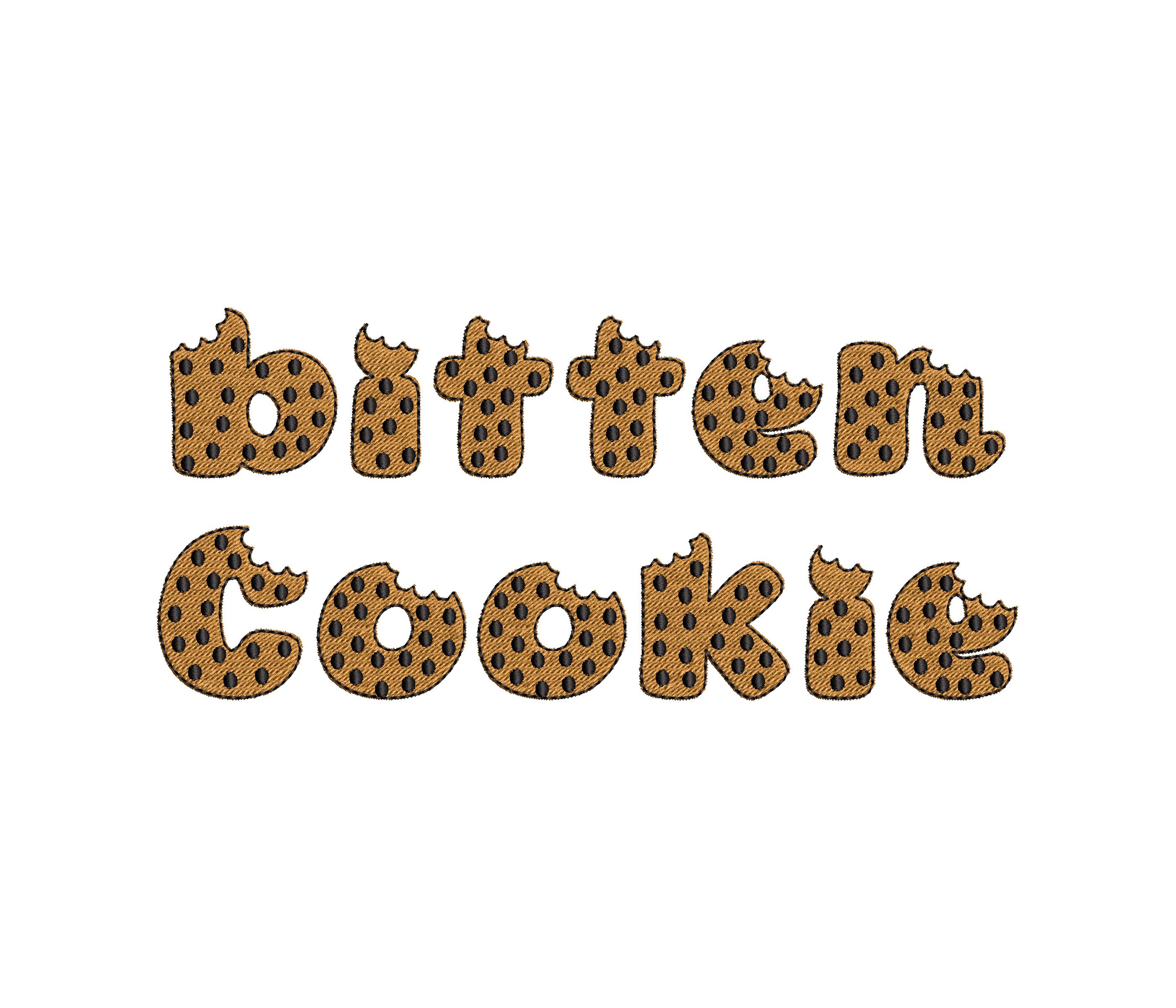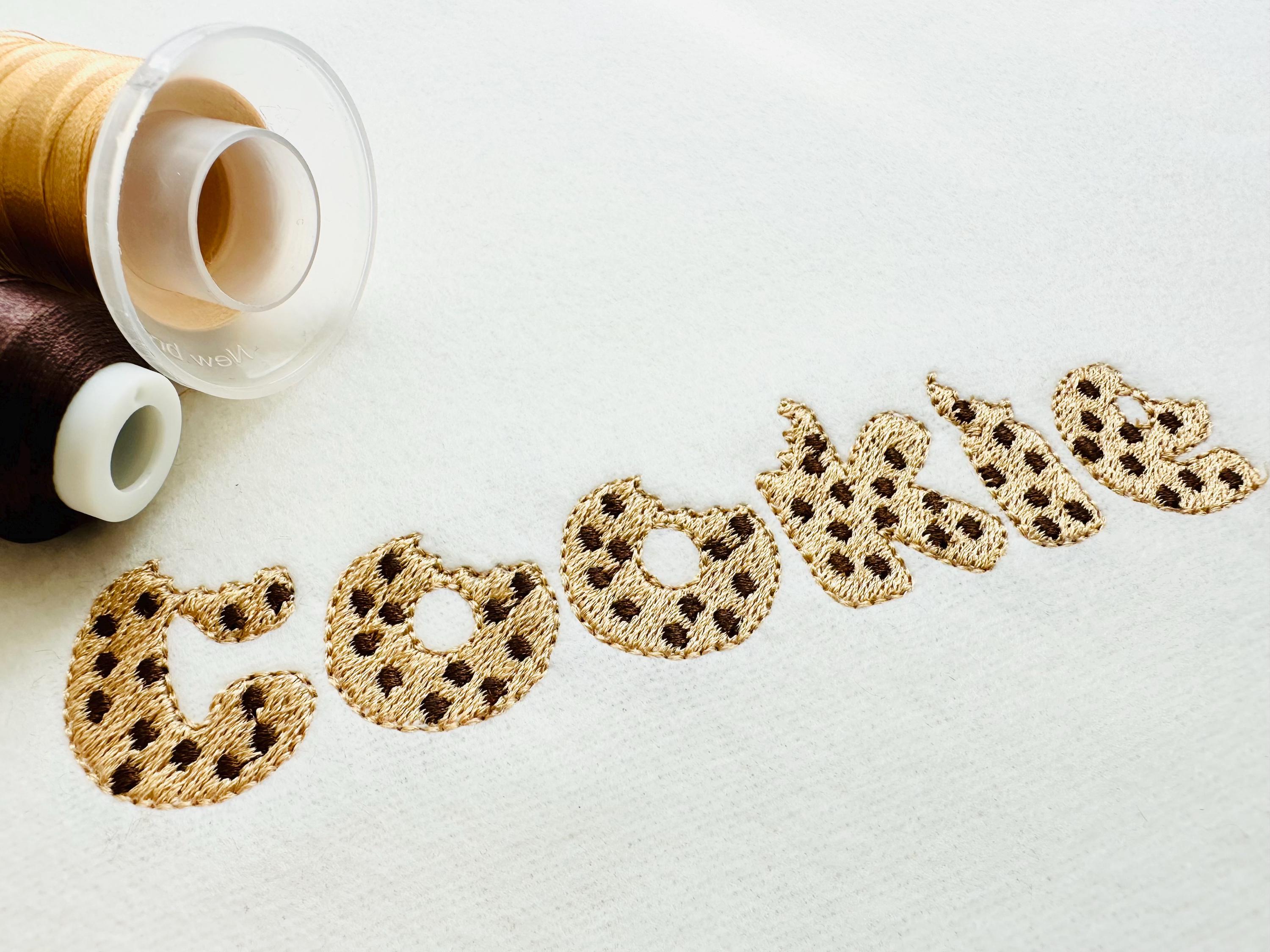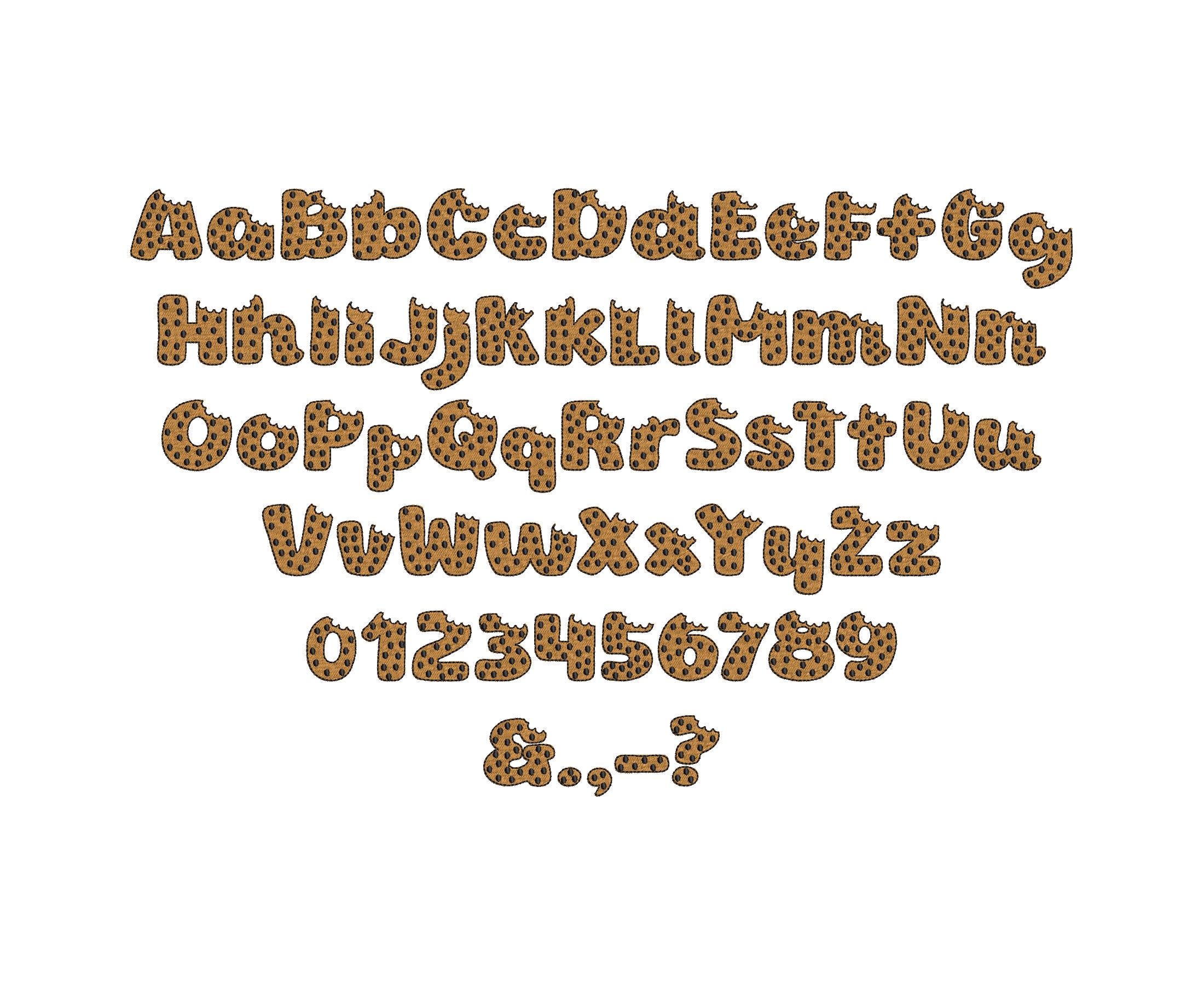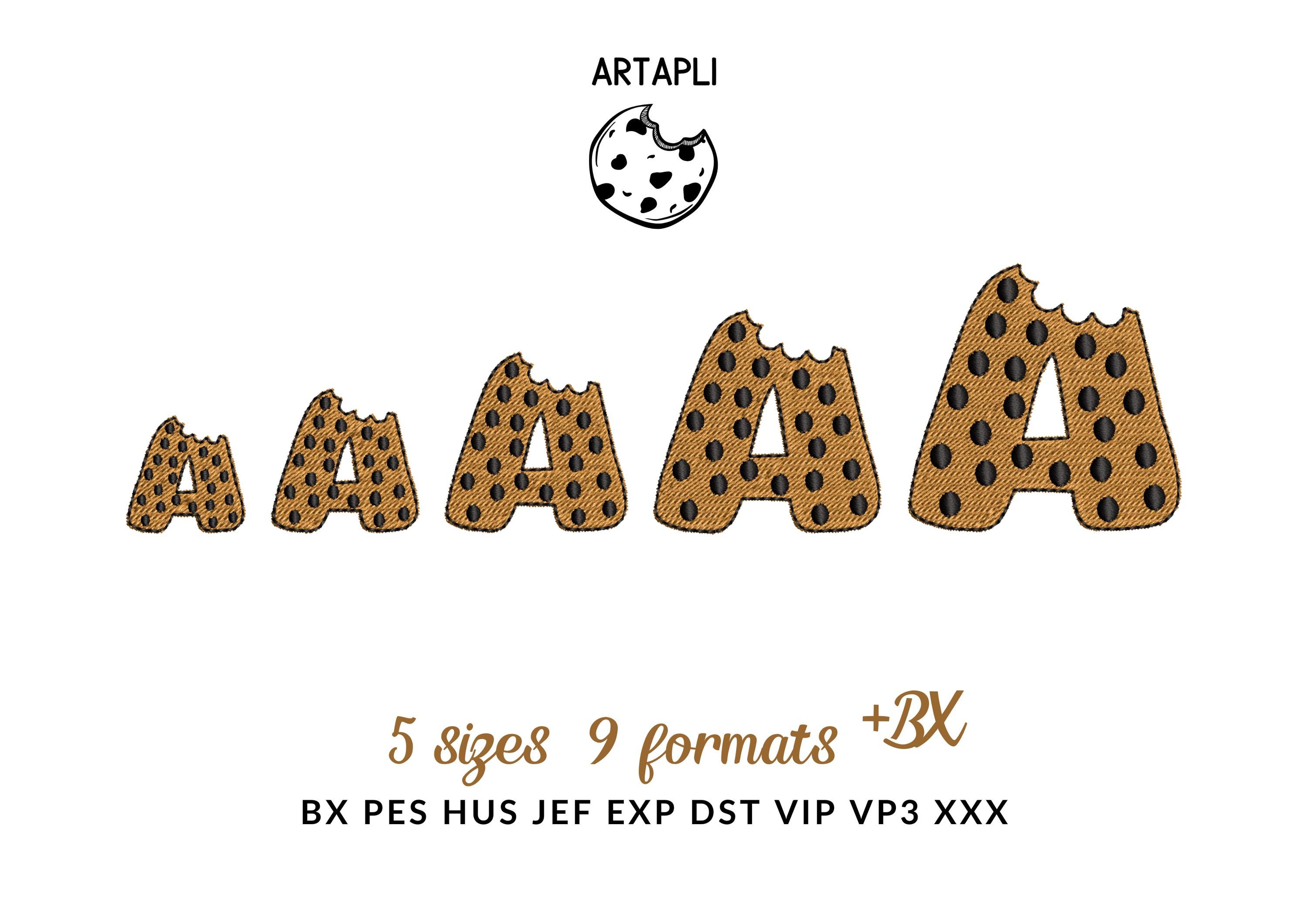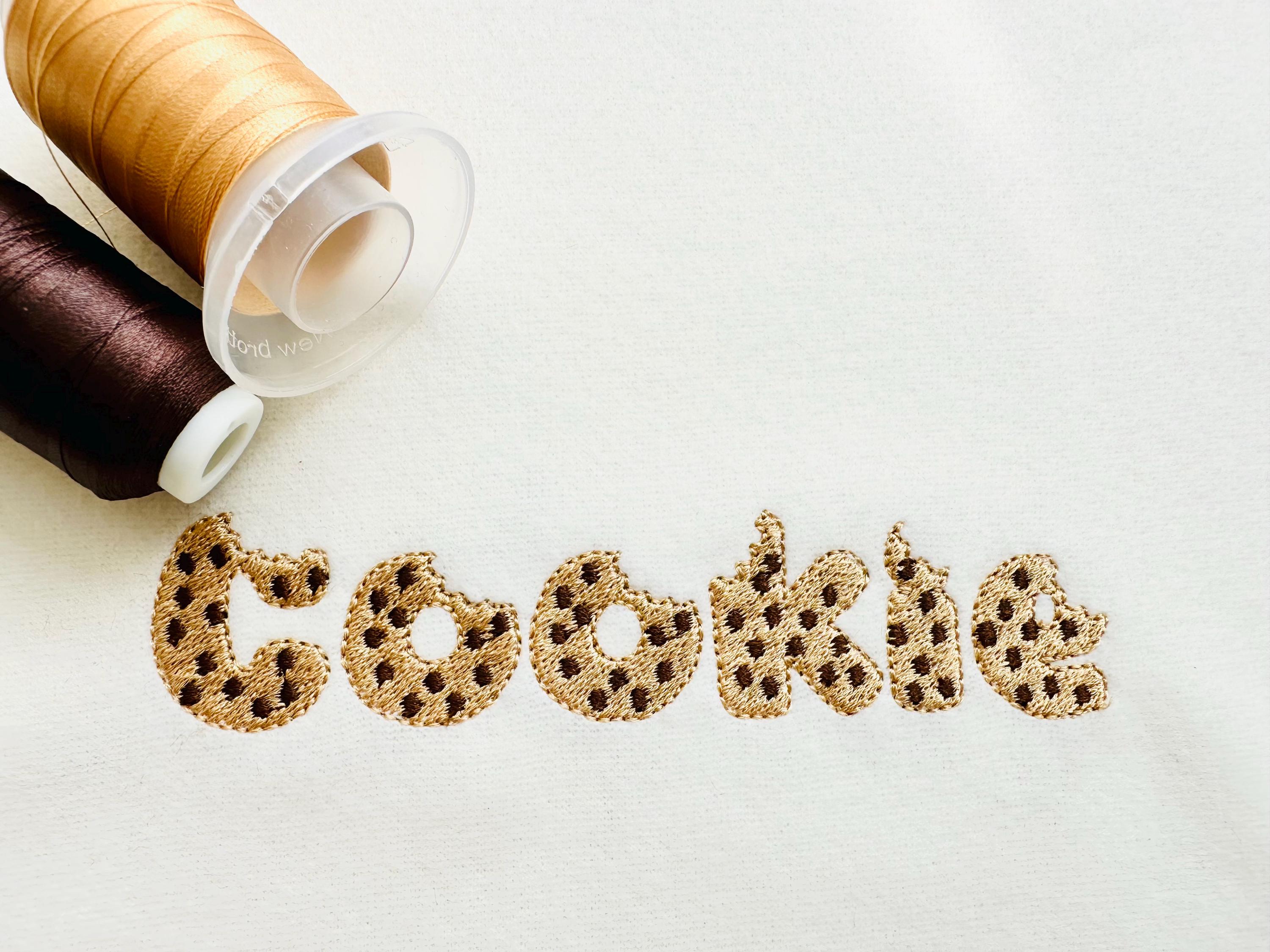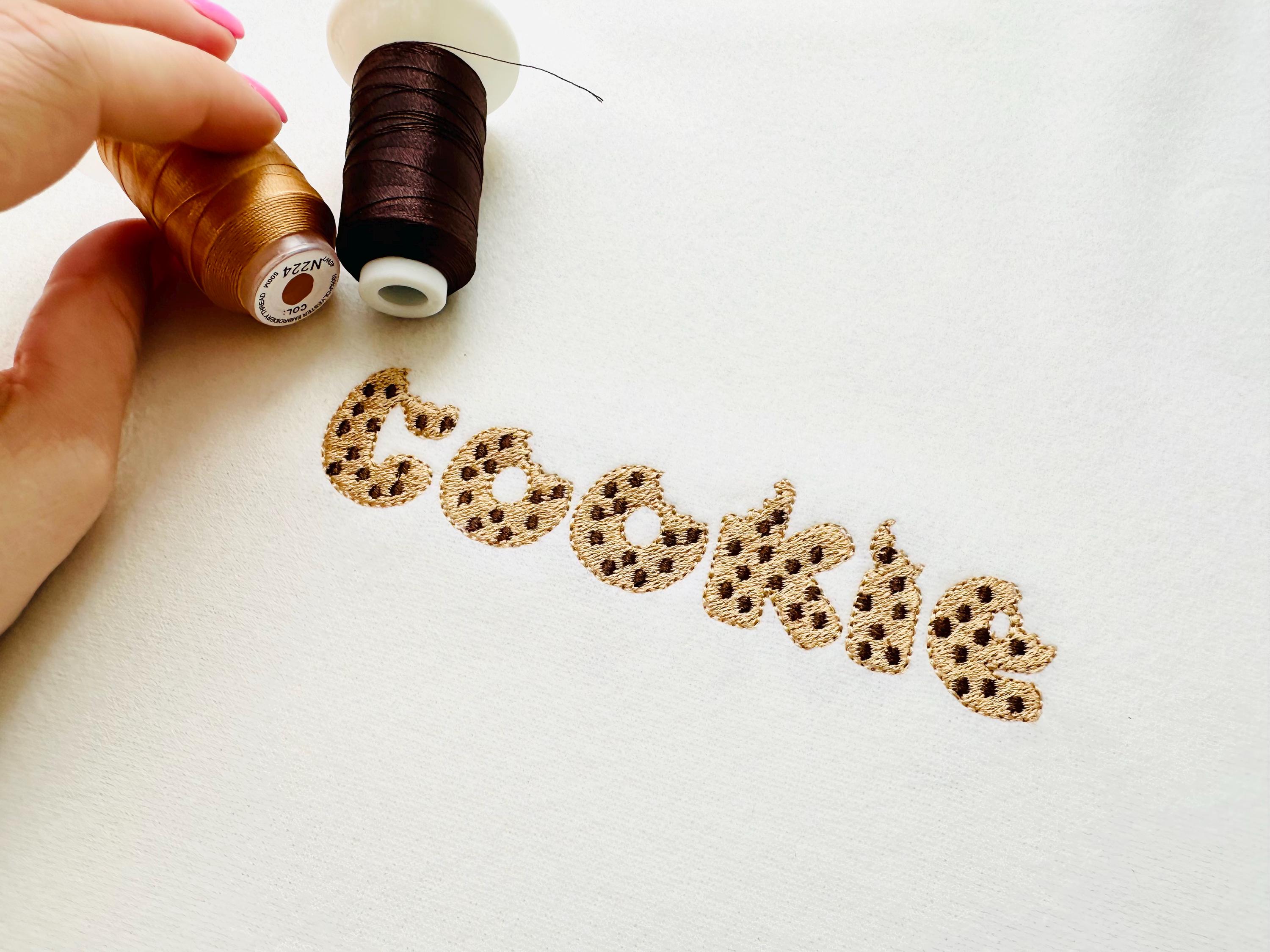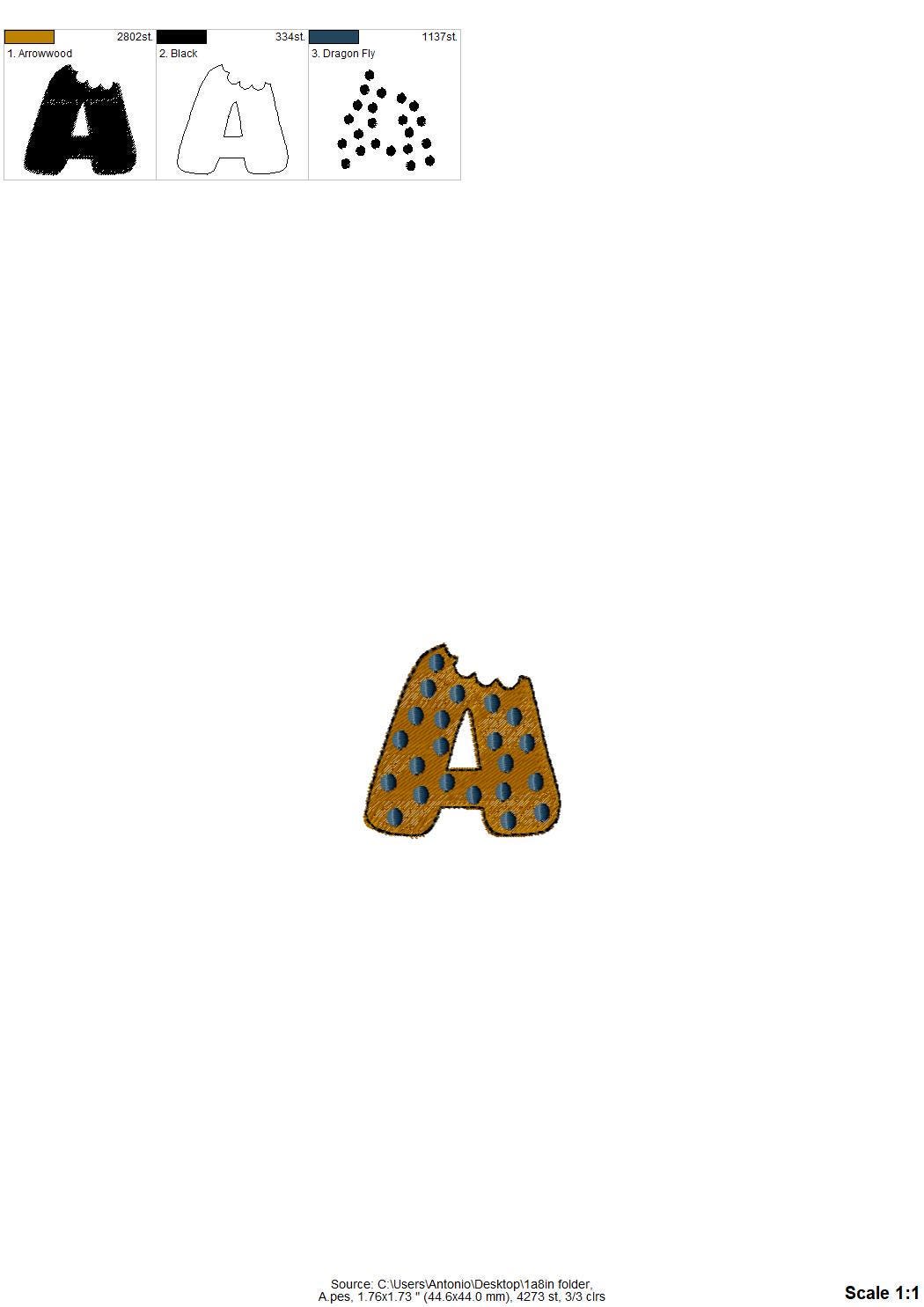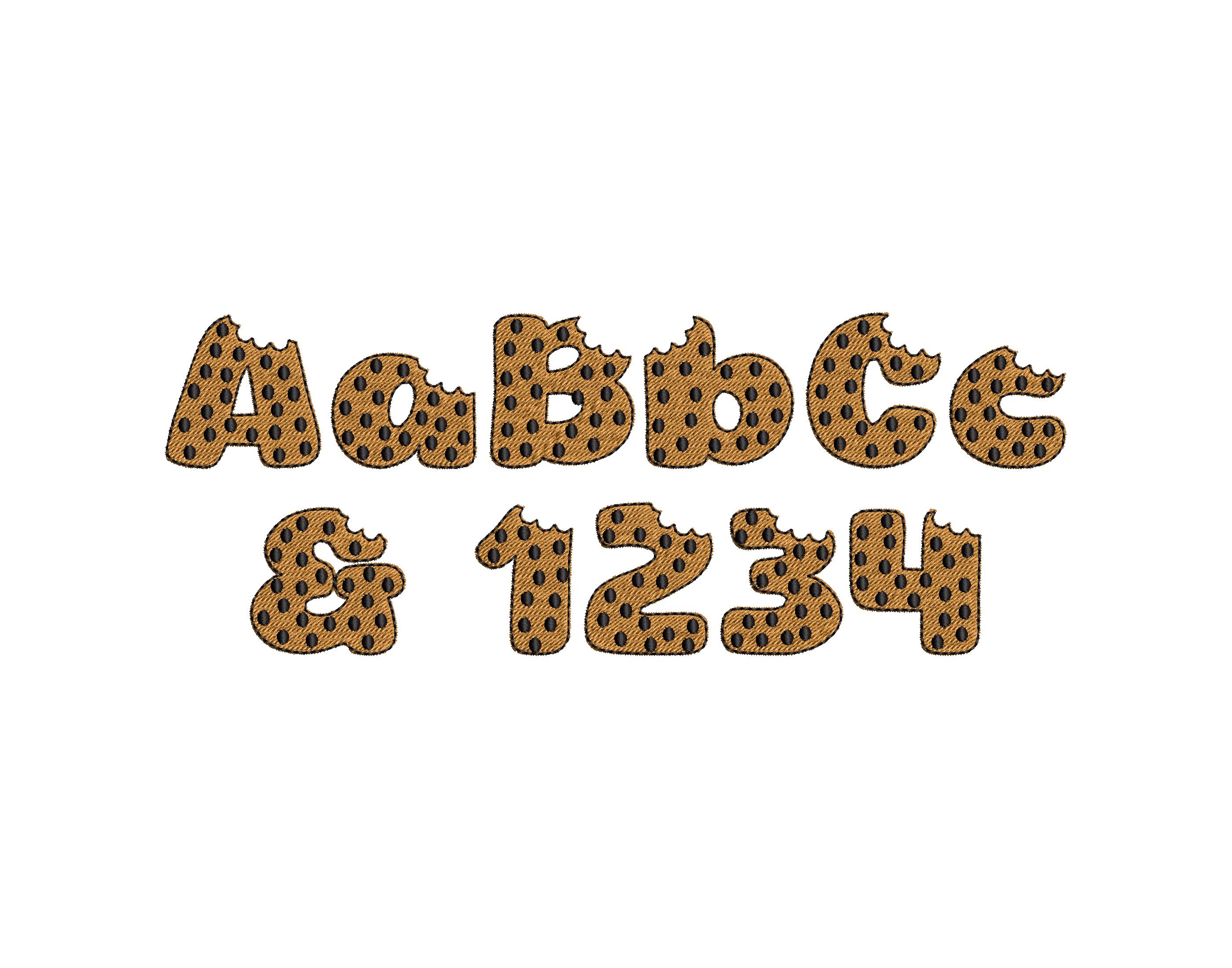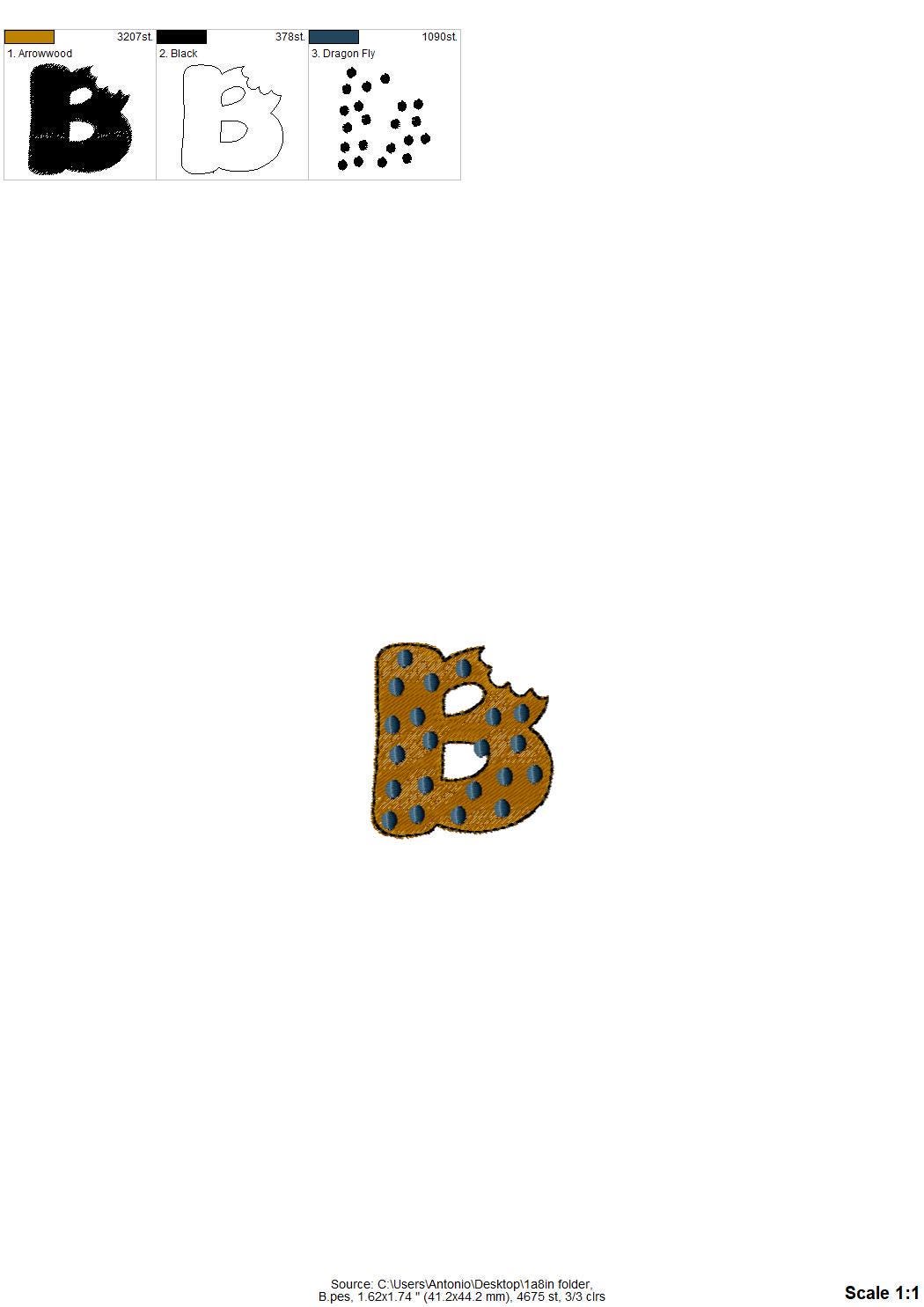
Bitten Cookie FONT chocolate crisps fill stitch Monogram alphabet letters kids baby machine embroidery designs sizes 1, 1.2, 1.4, 1.8, 2 inch
Whole alphabet uppercase and lowercase letters Aa-Zz, numbers 0-9, and punctuation.